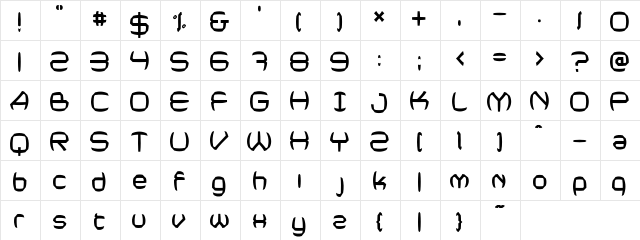
SM_waterisM Regular
| Foundry | Dan Meyer (smashmethod) |
| Designer | Dan Meyer (smashmethod) |
Design Context for SM_waterisM Typeface
SM_waterisM offers clean, dependable letterforms without strong stylistic allegiance, making it a practical choice for designers who need flexibility.